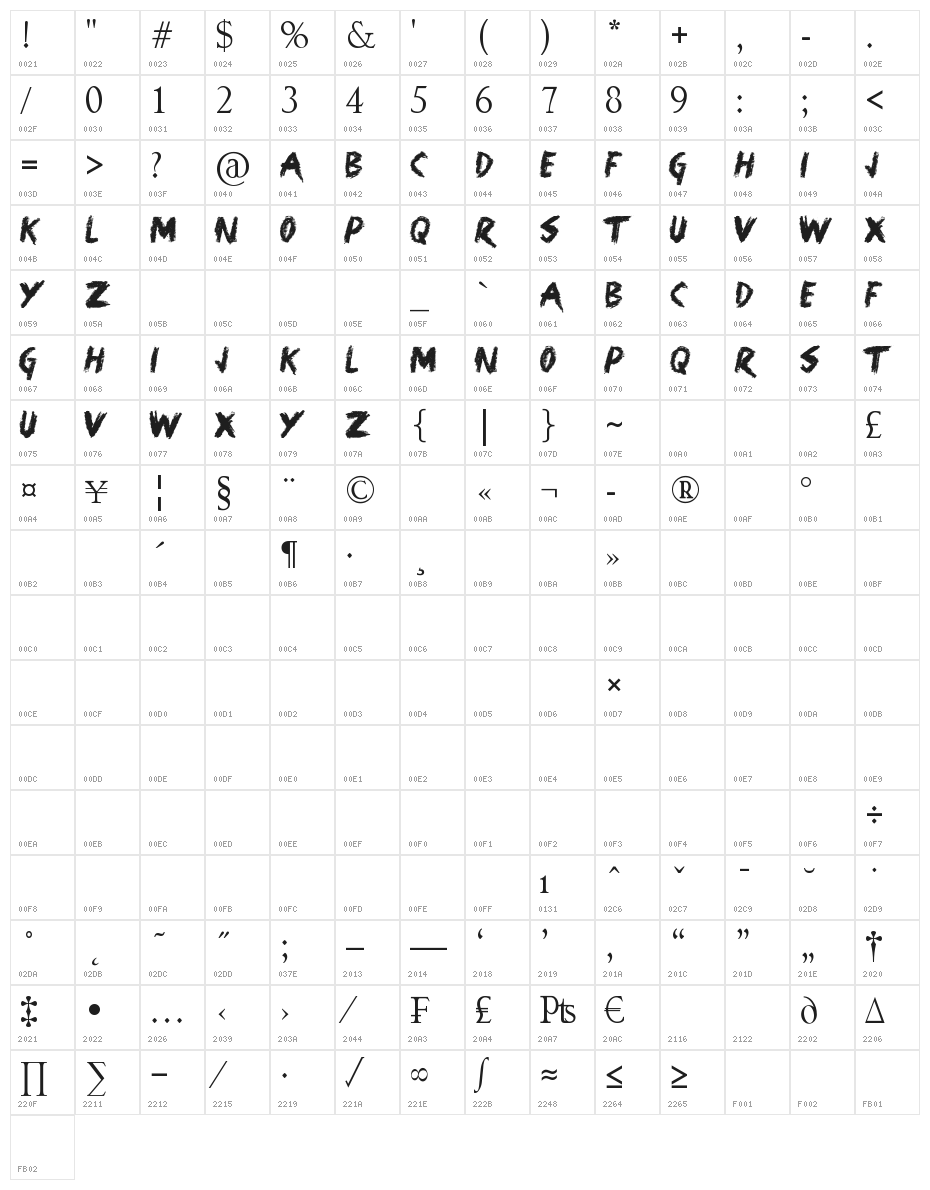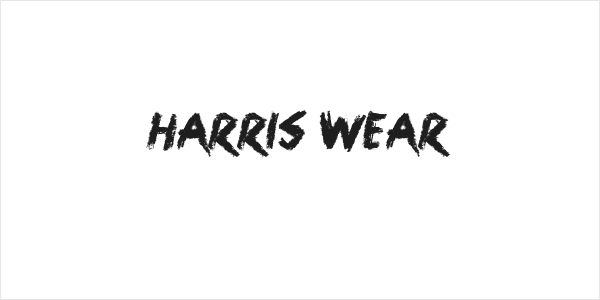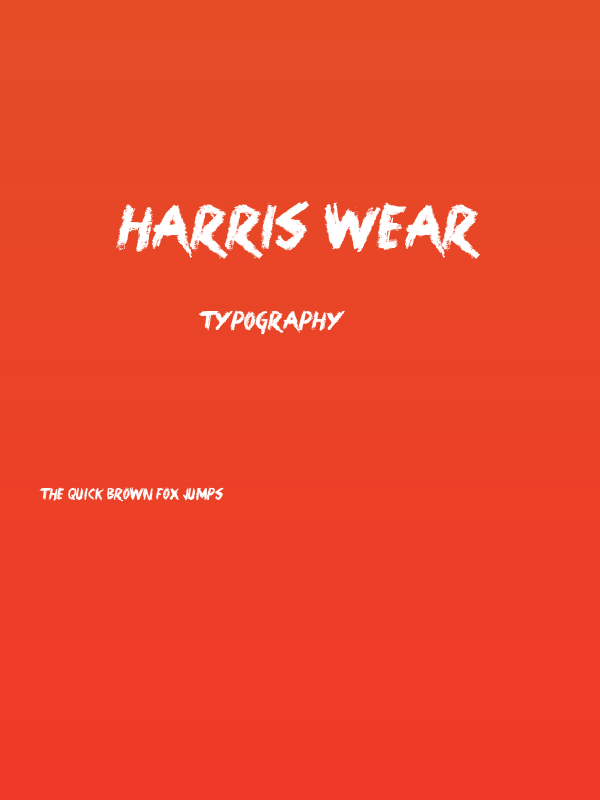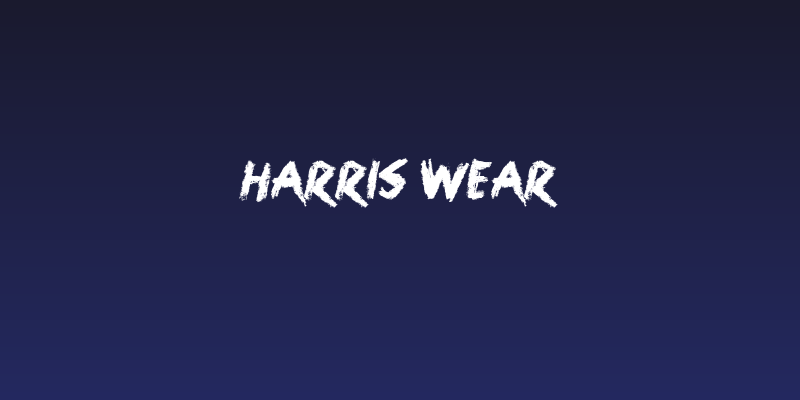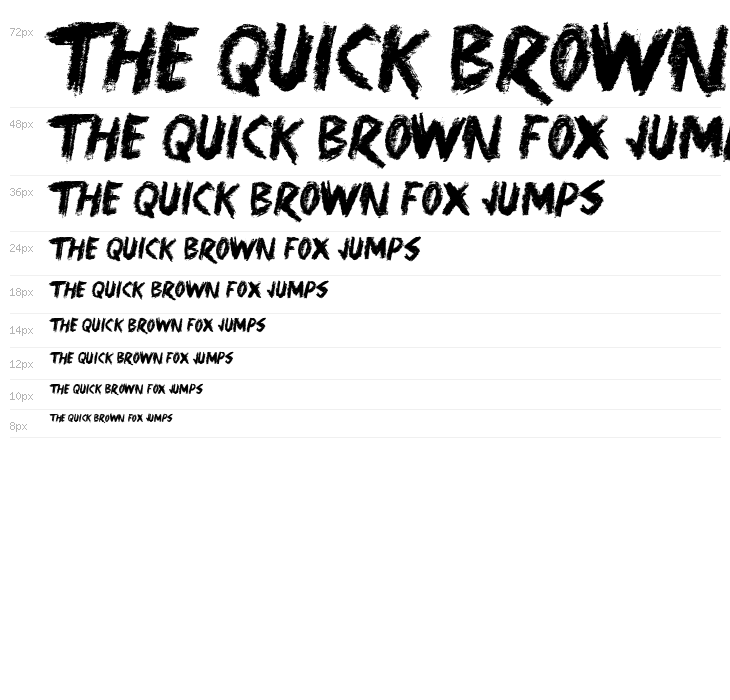
Harris Wear Font
| Gesamtstil | Modern, Artistic |
| Vorgeschlagene Projekte | Ideal for posters, branding, creative headlines, and artistic projects. |